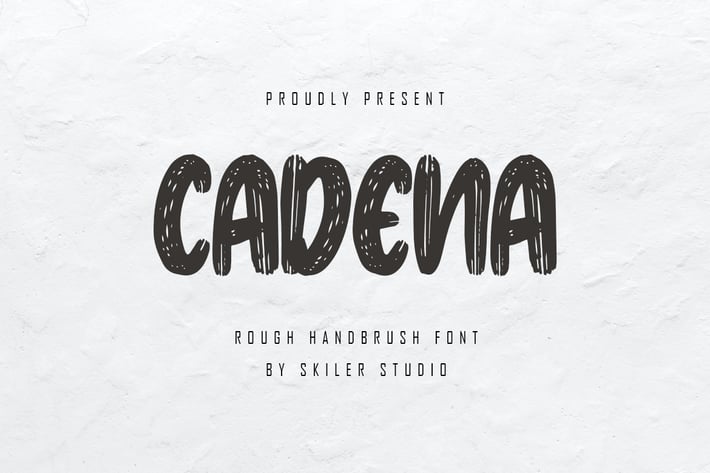
Cadena - Rough Handbrush Font
Cadena is a type of textured Rough brush or paint scratches or original brush, there are textures like the original stroke of this font suitable for other film or commercial needs that can support your business or company